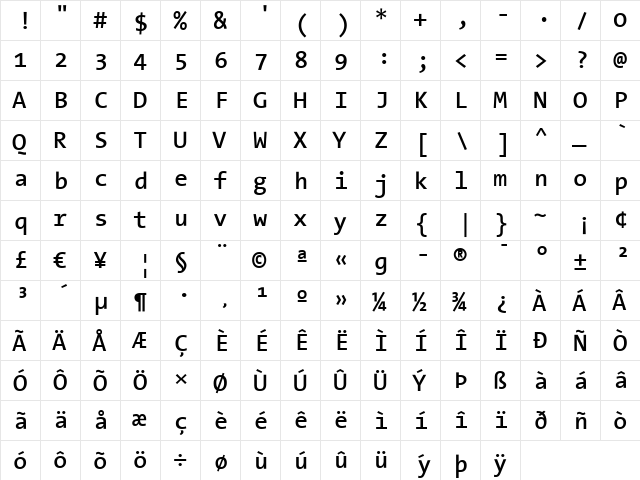
TheSans Mono SemiBold
TheSans Mono SemiBold Font Details
| Style | SemiBold |
| Foundry | Luc\(as\) de Groot |
Design Context for TheSans Mono Typeface
TheSans Mono brings the precise, column-aligned rhythm of monospaced typography to designs that value technical clarity and systematic order. Its bold stroke weight gives it real presence on the page.
Pro Tip: Pair TheSans Mono with a proportional sans for UI contexts where code-style labels and regular body copy need to coexist.